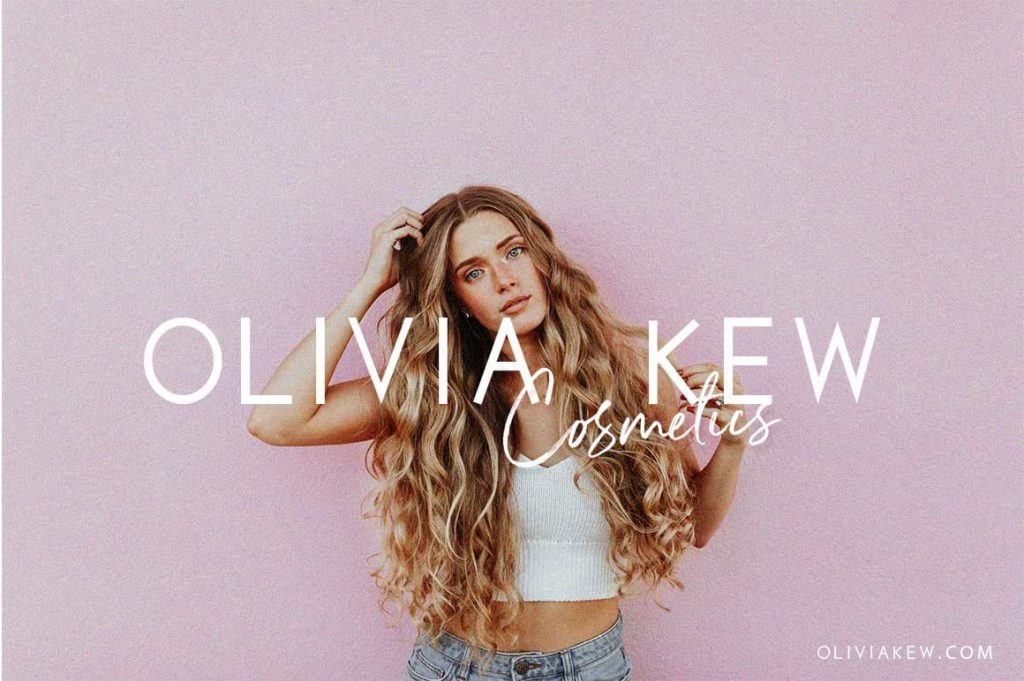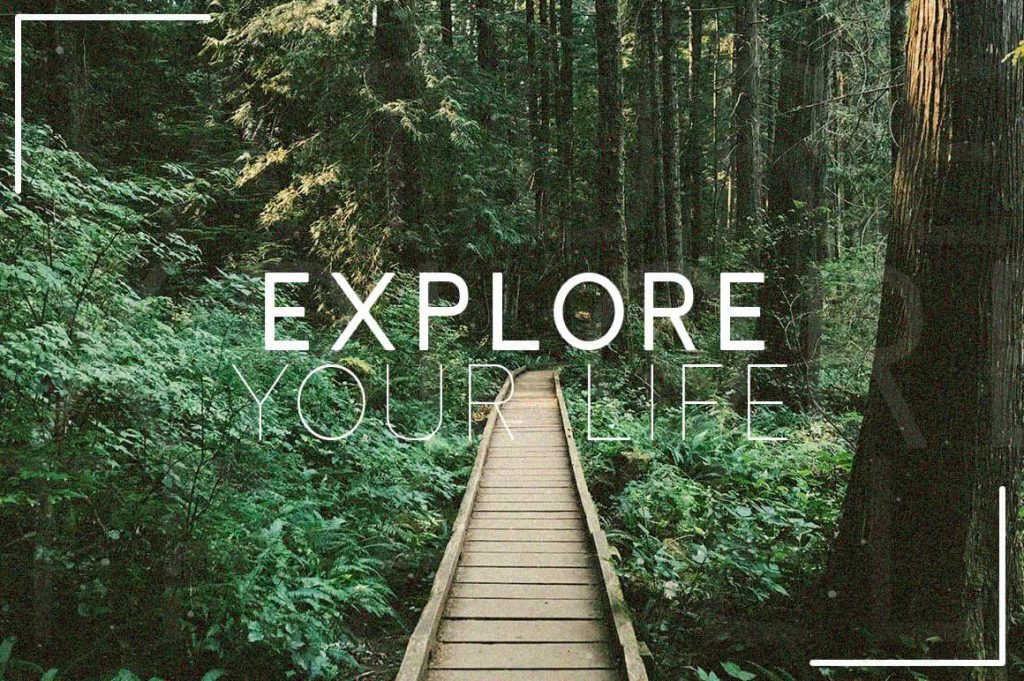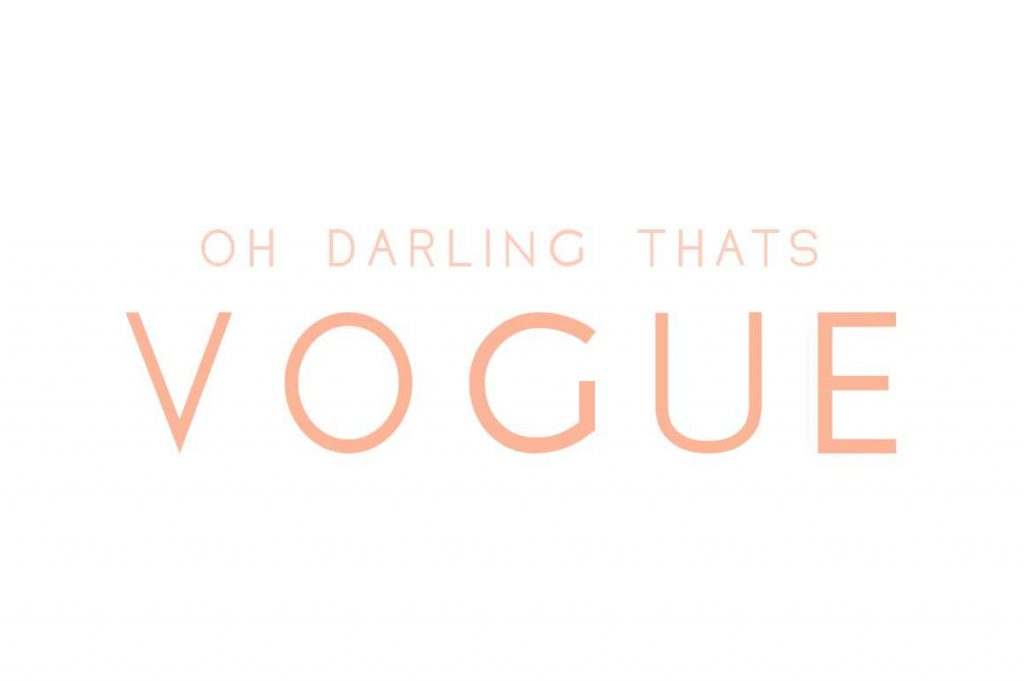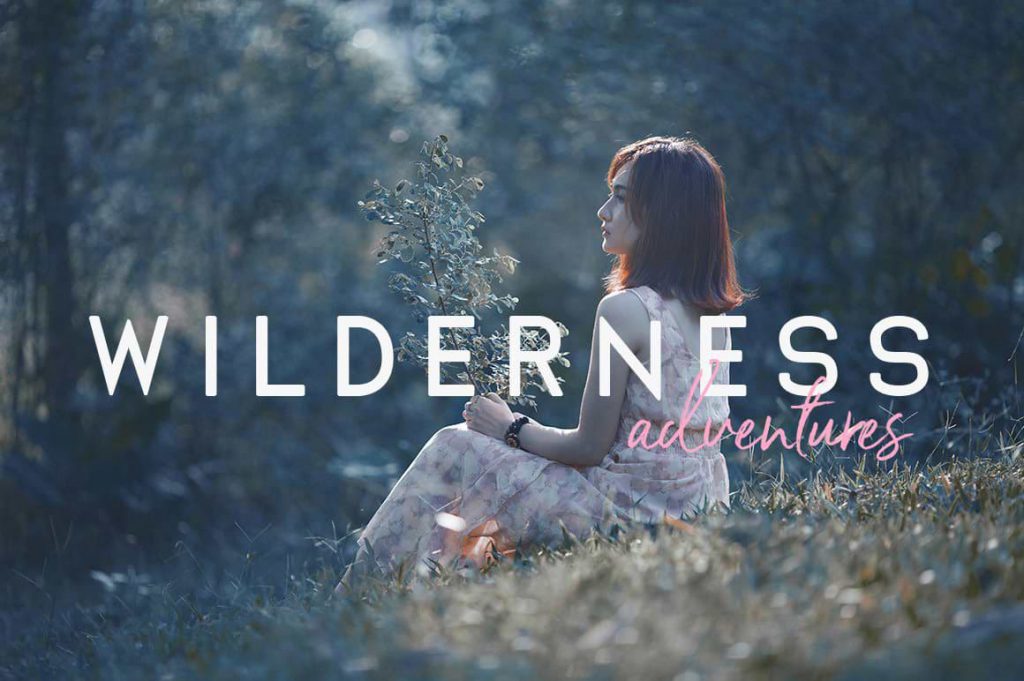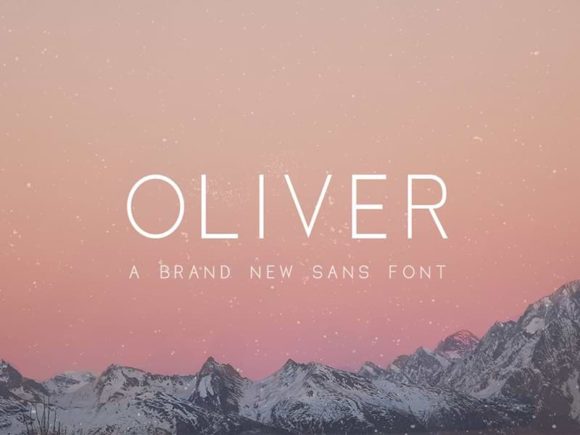
Oliver: Free Sans Serif Font In 3 Weights
Oliver is a free sans serif typeface released by freedesignclub.com exclusively for our readers! It comes in 3 weights (light, regular, bold), multiple file-formats (OTF, TTF, EOT, SVG, WOFF & WOFF2). A great choice for both graphic and web design.